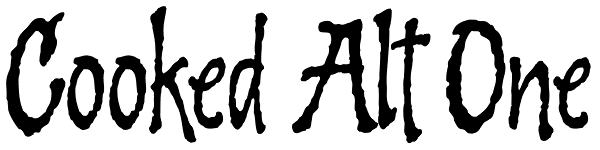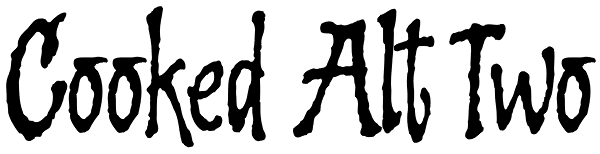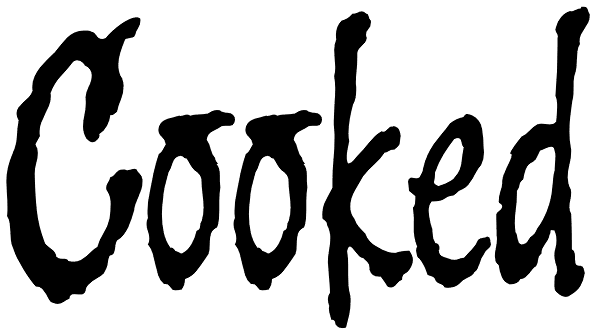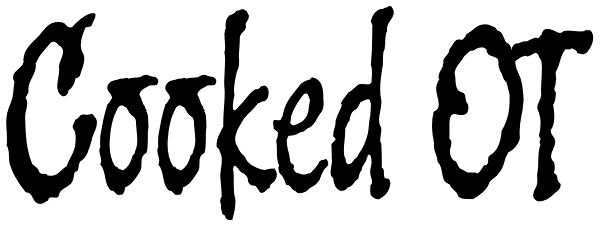
Cooked
Koziupa and Paul are just as good in the kitchen as they are on the drawing board. Cooked is their choice offering of stir-fried and juicy alphabet ready to complement any visual stew you can put together. This meaty course, with even meatier...